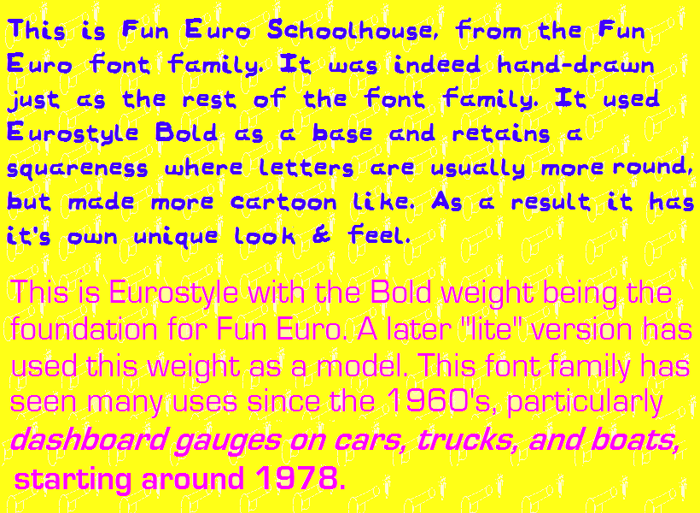
Name Day Cheers (formerly Fun Euro Schoolhouse) Font
Schoolhouse Style
After 30 years, we are retiring the Fun Euro name. The first Fun Euro font was drawn in 1986. Don't worry, this and other fonts will still be offered, and for free, just under a different name The new name for this font is Name Day Cheers. It's still part of the Russelfeiring Blast font family officially.
Because Russelfeiring is a adult activity and hard for kids to pronounce anyway, we decided to call this font Name Day Cheers (the kiddo equivalent of Russelfeiring). Only that holiday is worldwide.
On the specimens with the old Fun Euro Schoolhouse which the name is still appearing, we will eventually edit out the Fun Euro Schoolhouse name and replace it with the new Name Day Cheers name, or replace them altogether.
This is the SWMCA Schoolhouse version of Fun Euro.
It's a pretty playful font.
Fun Euro is a more cartoonish play off of Eurostyle.
It does have unique characters that are totally different
from Eurostyle. While SWMCA did suspend operations to the public and graphics industry from 2009 to 2012, it never went out of business. Font experimentation and drawing continued. This font was conceived during that period. Actually created in early 2010, SWMCA presents the
Actually it was based on Eurostile. Like Eurostile Candy has a more rounded look, it too was based on Eurostile but has a different look. Some of the angles in Fun Euro were changed like on the "o" characters. The "l" was changed to conform more to a modern style used today in fonts such. The "G" retained the same style but the vertical part was angled at about 25 degrees. The "R" had to be redesigned because it resembled the "A" in the alternate characters. The "P" was redesigned at the top to match it more. Some of the end angles like on the bottom of the "g" were reversed to point in the opposite direction. The "K" had to be changed too so it didn't look too much like a "H" as the "D" was changed so it didn't look too much like a "O". That was no problem when on computer screens, but presented huge problem when tested with various printers. Epson Stylus CX6600, Canon Pixma MP280, and and a Hewett-Packard were all used with similar results. Very important especially for the "Schoolhouse version" where it might actually appear in 2nd grade textbooks. Some of the horizontal lines such as in the "h", "n", and "u" were just angled to give it a more unique feel. This is an altered version designed for grammar schools so certain characters are varied even from the regular Fun Euro. It looks more like Eurostile in the caps. Basically Fun Euro had "the Cheltenham problem." The one we know today is far from the 1896 version drawn by Bertram Goodhue. The Cheltenham we see today is actually the 1903 version from Morris Fuller Benton of American Type Founders. The New York Times have their own version appropriately dubbed "Times Cheltenham". There is a Fun Euro Mature that does like a little closer to Eurostile. A Crayola marker (not a crayon) was used as the medium for making Fun Euro while a Sharpie Calligraphic pen was used for Fun Euro Mature version. Fun Euro got the "Schoolhouse" font while Fun Euro Mature got a cursive font in addition to the manuscript one.
It looks nothing like Eurostile, but it's still a decent level-2 heading font.